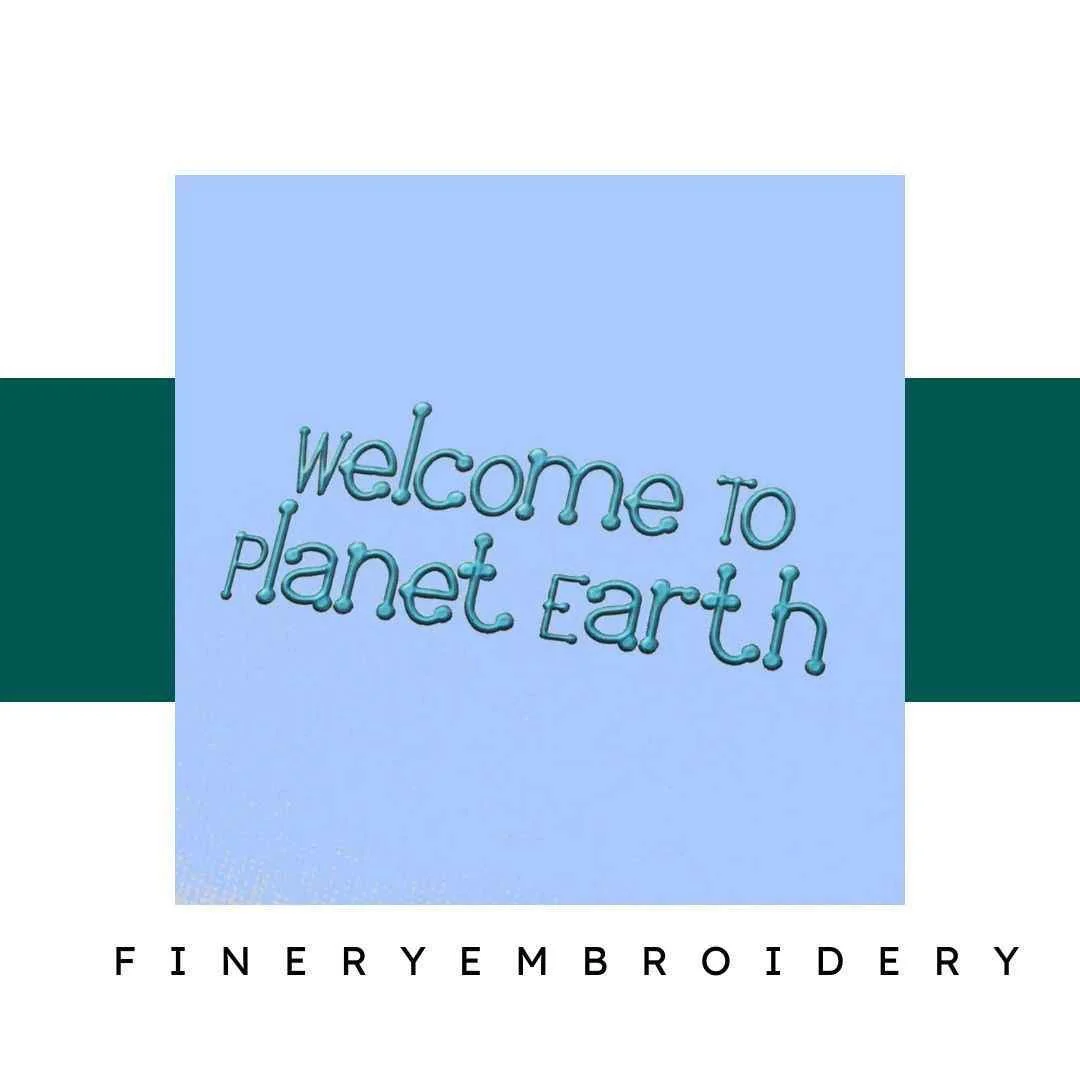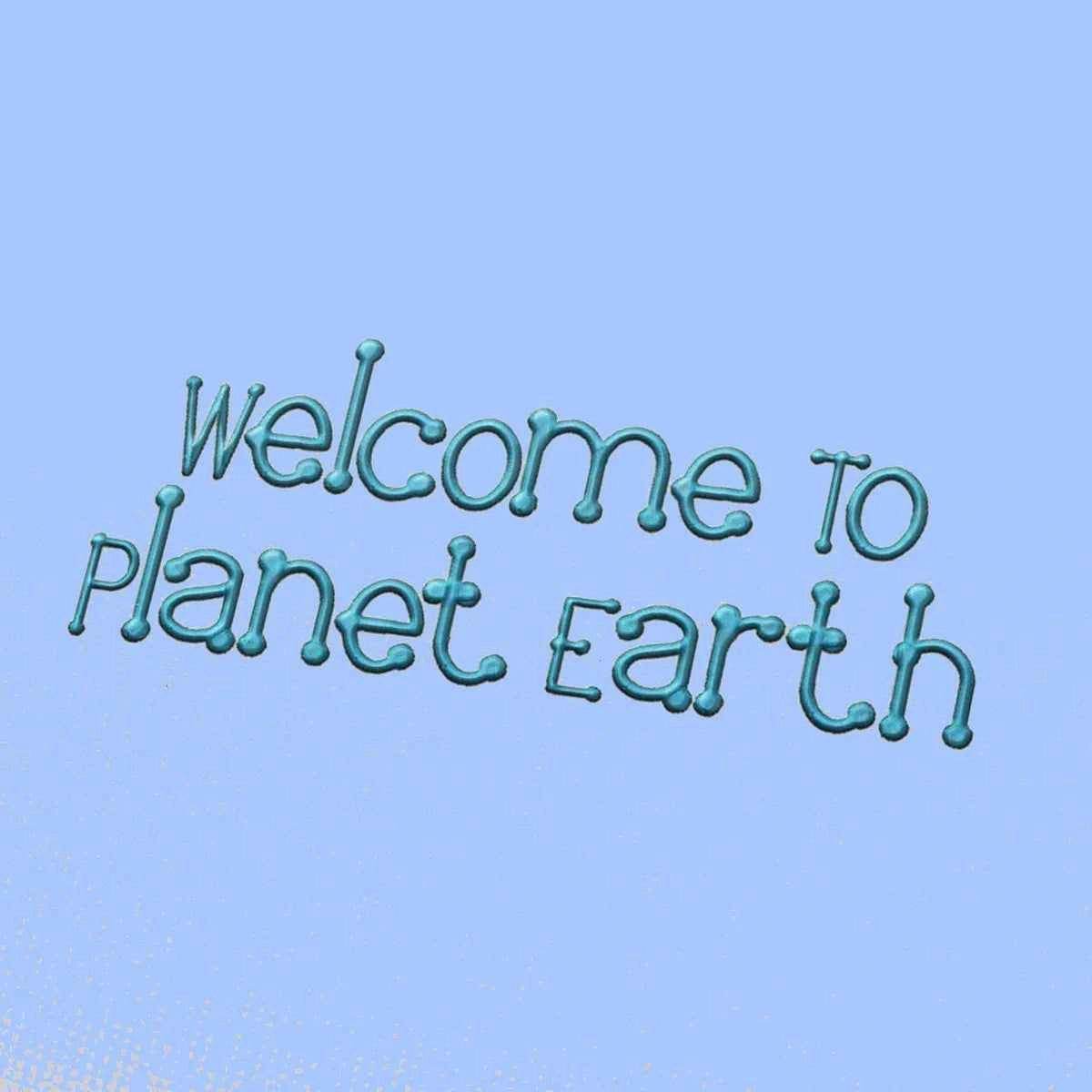
Welcome to Planet Earth Embroidery alphabet Font Set
Unleash Your Creativity with the Welcome to Planet Earth Embroidery Alphabet Font Set – a perfect blend of elegance and versatility for every embroidery enthusiast!
Welcome to the world of the Welcome to Planet Earth Embroidery Alphabet Font Set. This extraordinary collection is designed to elevate your embroidery projects, offering an elegant touch that complements any creative endeavor. Whether you're crafting personalized gifts or adding flair to your home décor, this font set is the ideal choice for both beginners and seasoned embroiderers.
Why You'll Love This Design
Each letter in this alphabet font set is meticulously crafted, ensuring high-quality and stunning results. The elegant curves and unique design elements make every piece stand out, allowing you to express your creativity in ways you've never imagined. It's not just about letters; it's about making a statement!
Creative Applications
The possibilities are endless with the Welcome to Planet Earth Embroidery Alphabet Font Set. From monogramming your favorite towels to creating custom apparel, this versatile set adapts to any project you envision. Let your imagination run wild as you explore various creative applications, enhancing everything from quilts to personalized gifts.
Digitized for Passionate Embroiderers
- Perfect for personalized gifts, home décor, and stylish apparel.
- Designed for both beginners and experienced embroiderers.